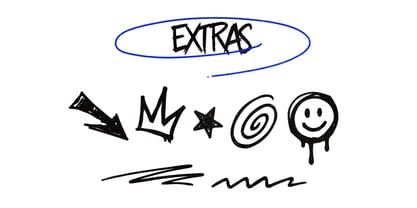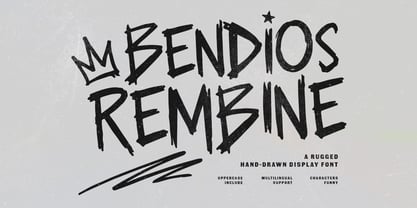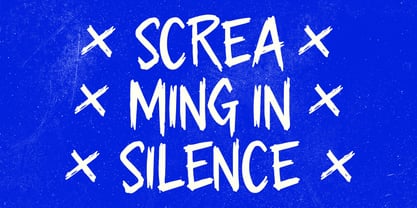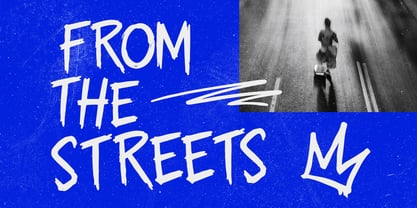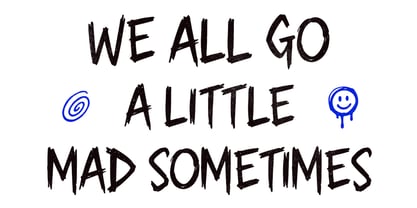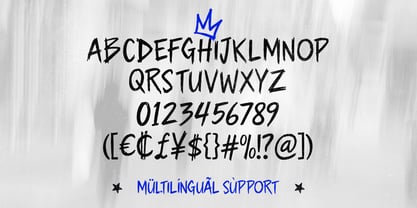
MC Bendios Rembine
by Maulana Creative
The MC Bendios Rembine Font Family was designed by Gilang Maulana and published by Maulana Creative. MC Bendios Rembine contains 1 styles. More about this family
Bendios Rembine is a bold and expressive display font characterized by its authentic, hand-drawn strokes and rugged texture. This typeface captures a raw, energetic aesthetic, making it an excellent choice for impactful headlines, social media content, and creative branding. Its aggressive lines and unique character shapes provide a distinct visual edge for any design requiring a powerful, handcrafted feel and high-contrast presence.
Designers: Gilang Maulana
Foundry: Maulana Creative